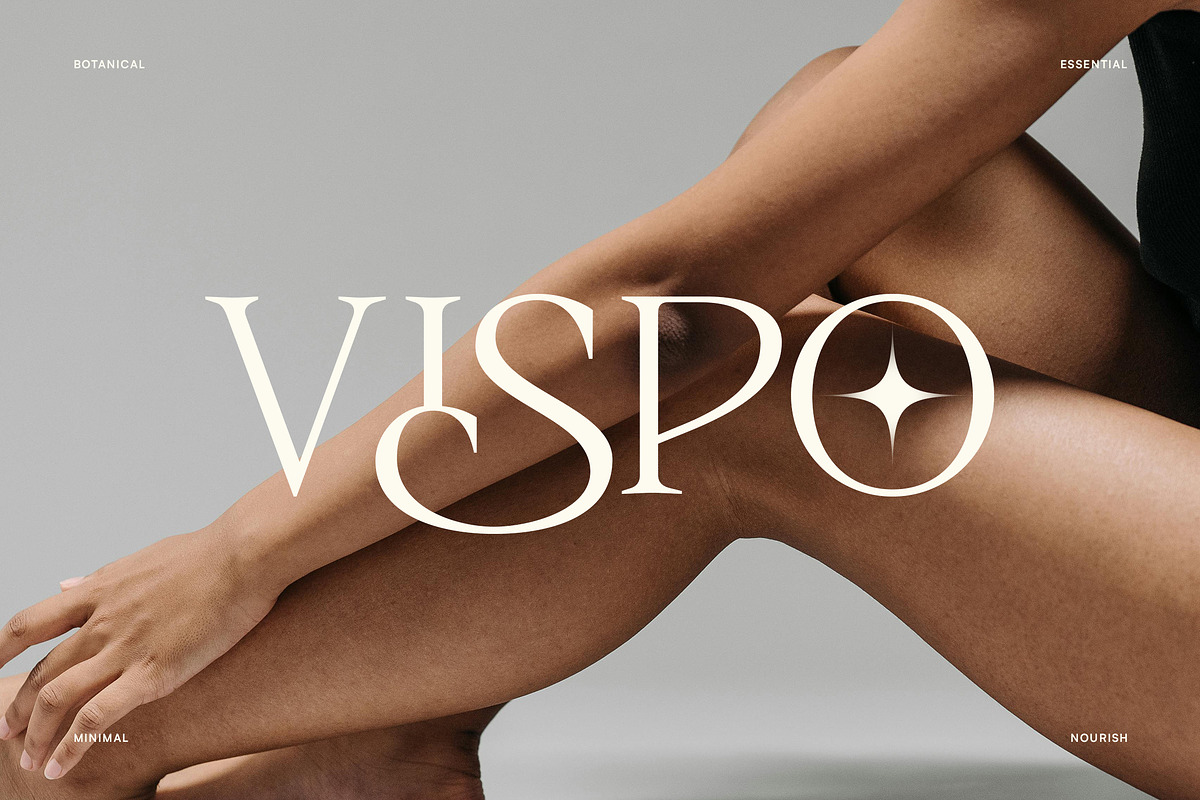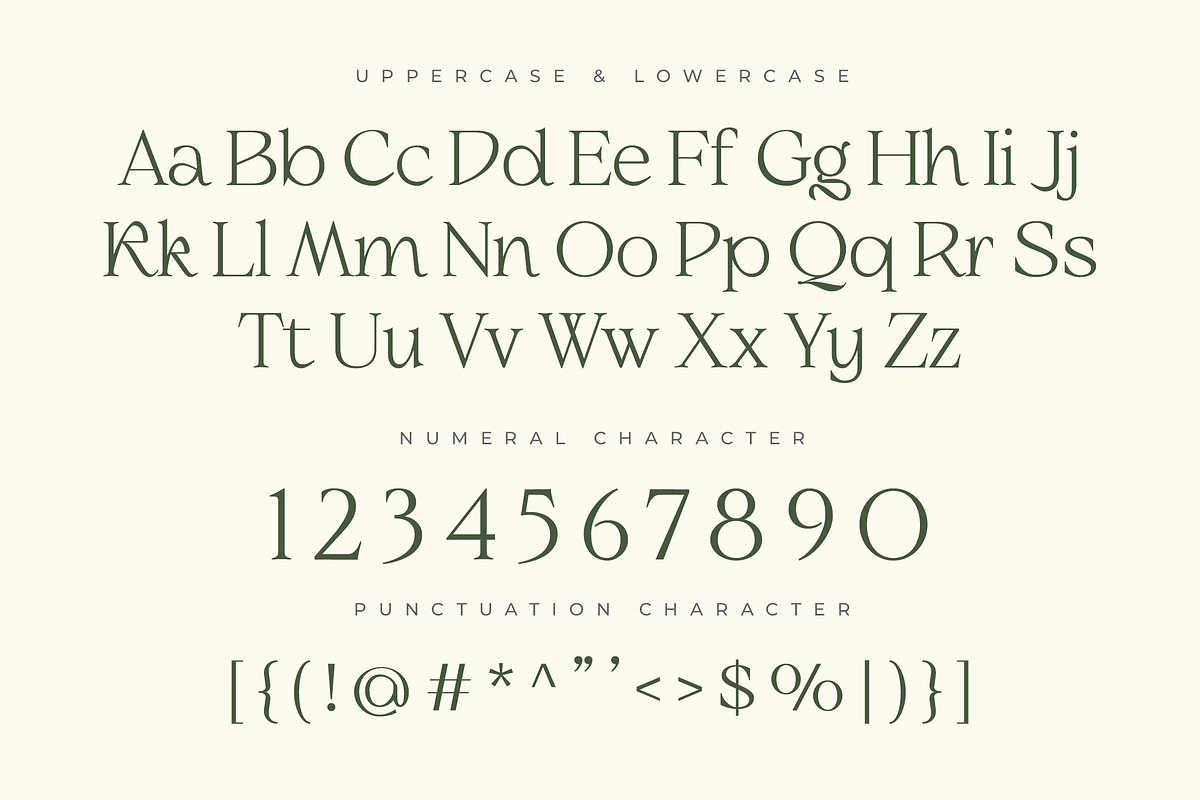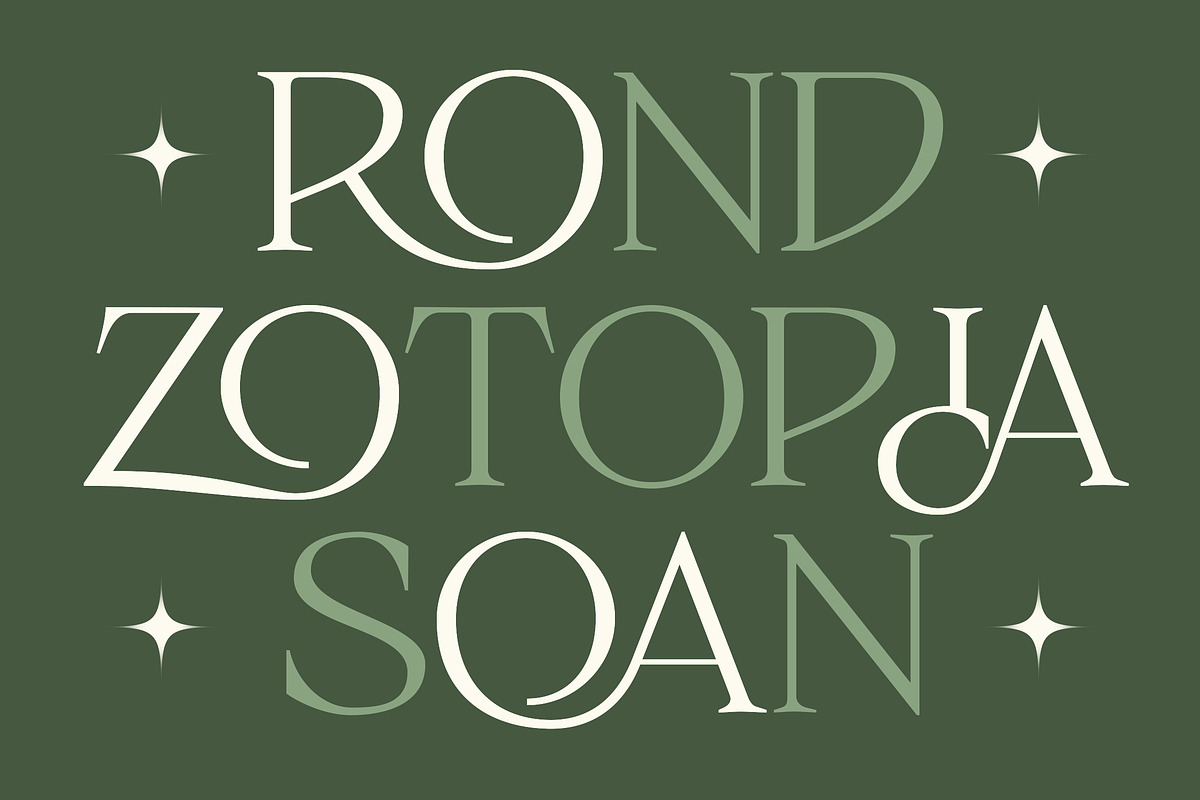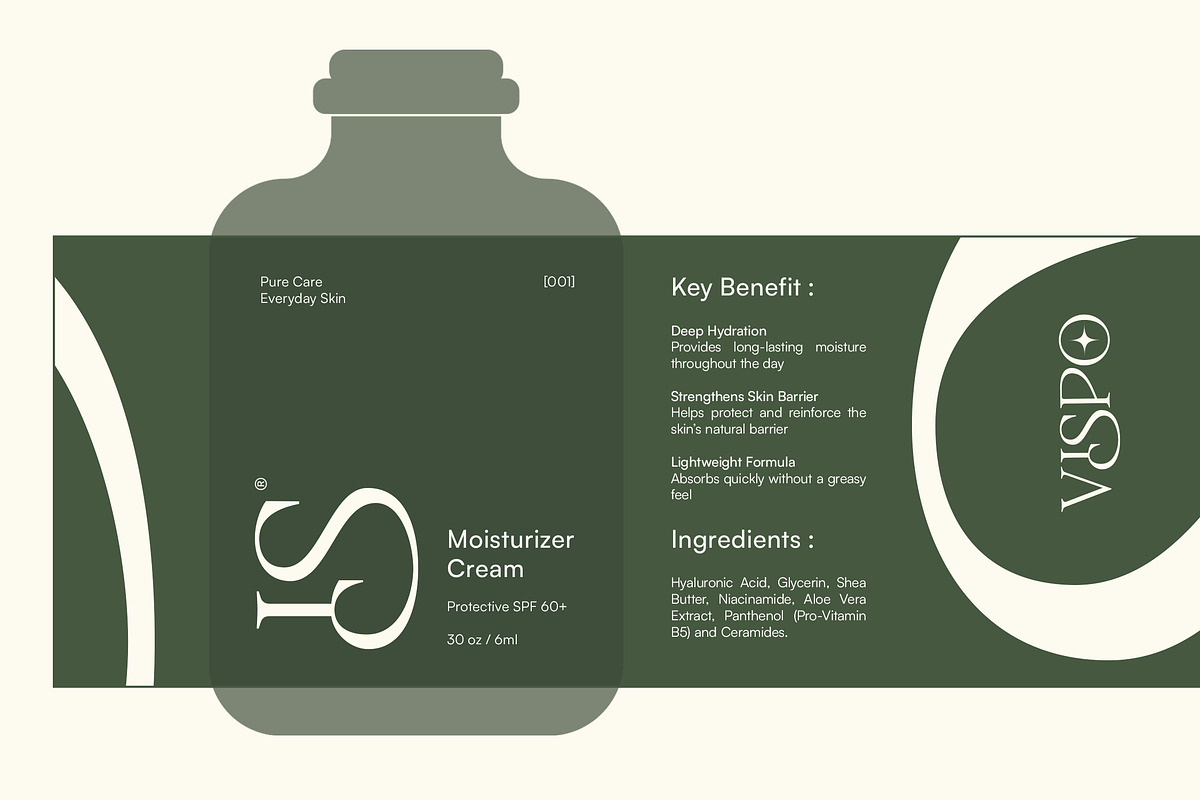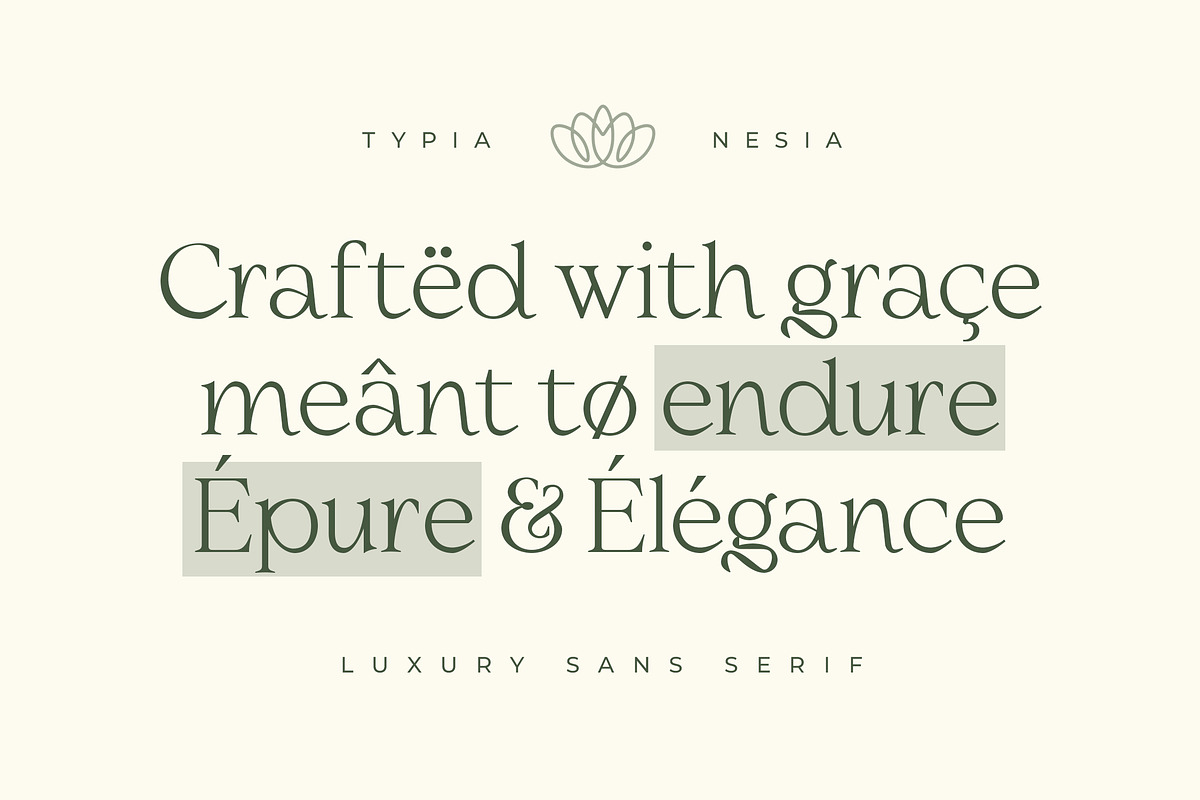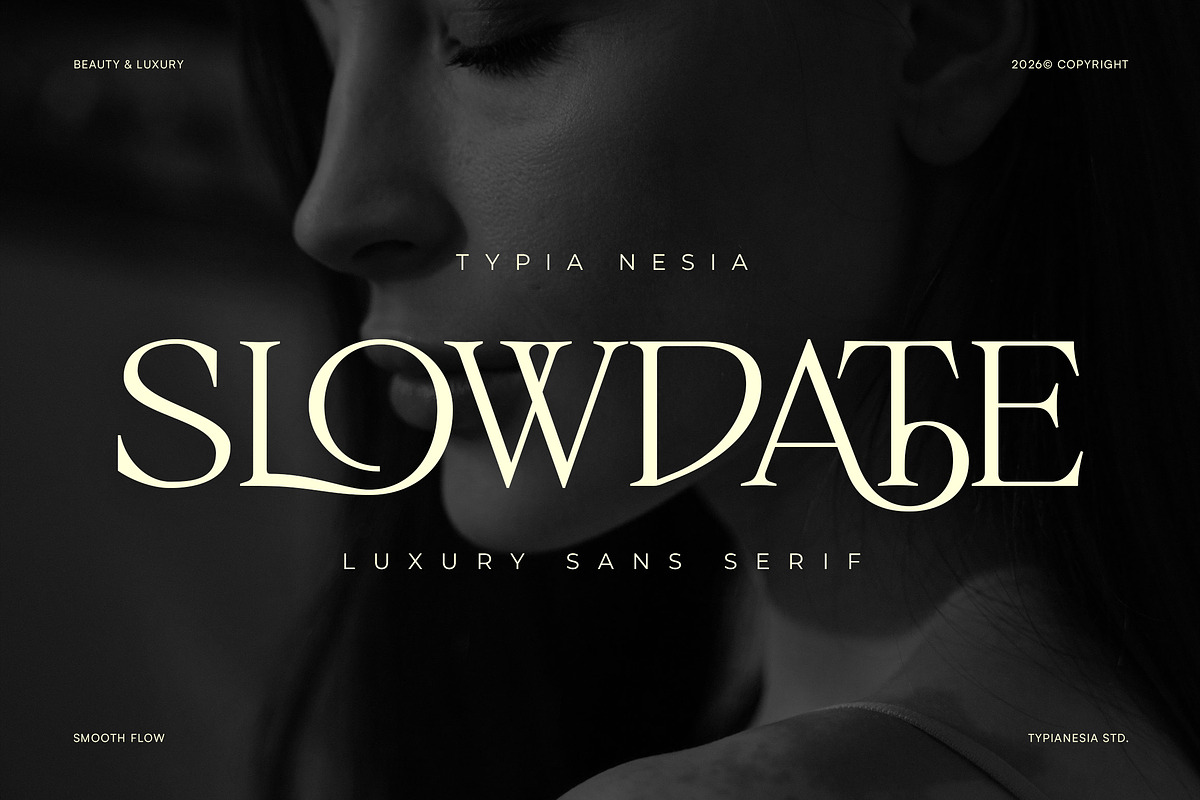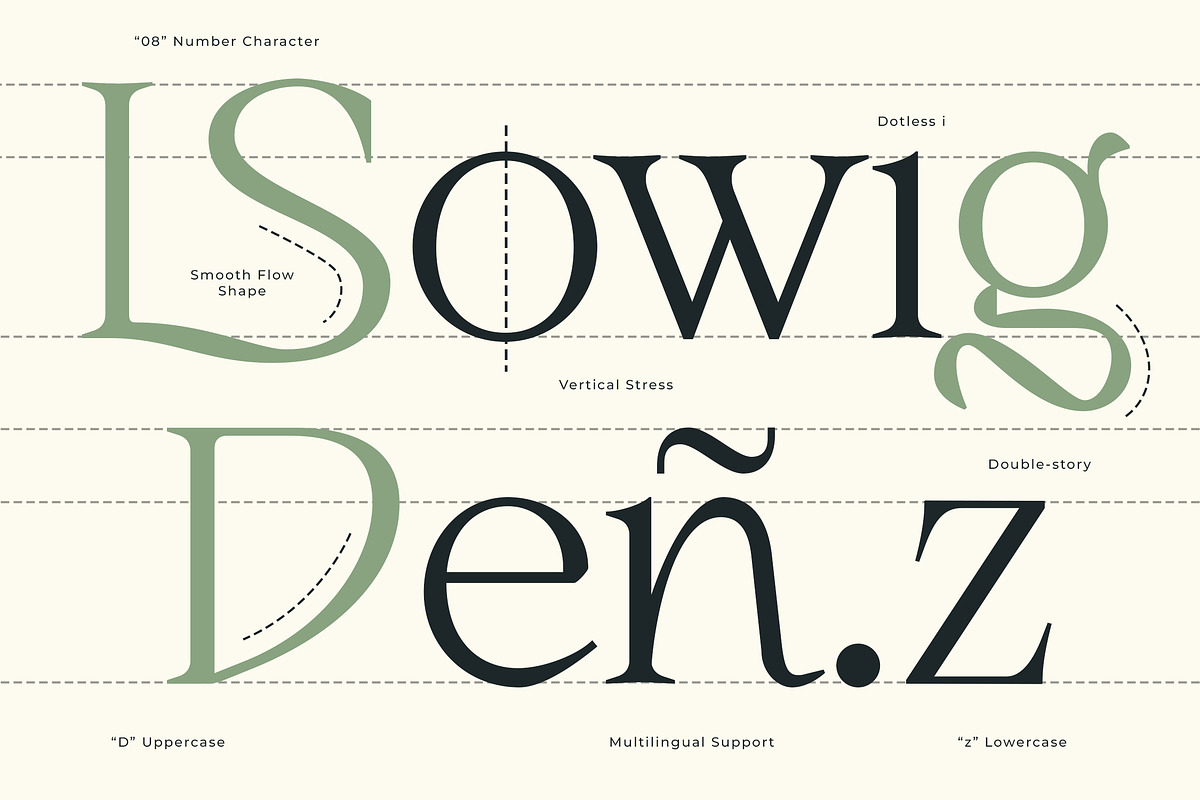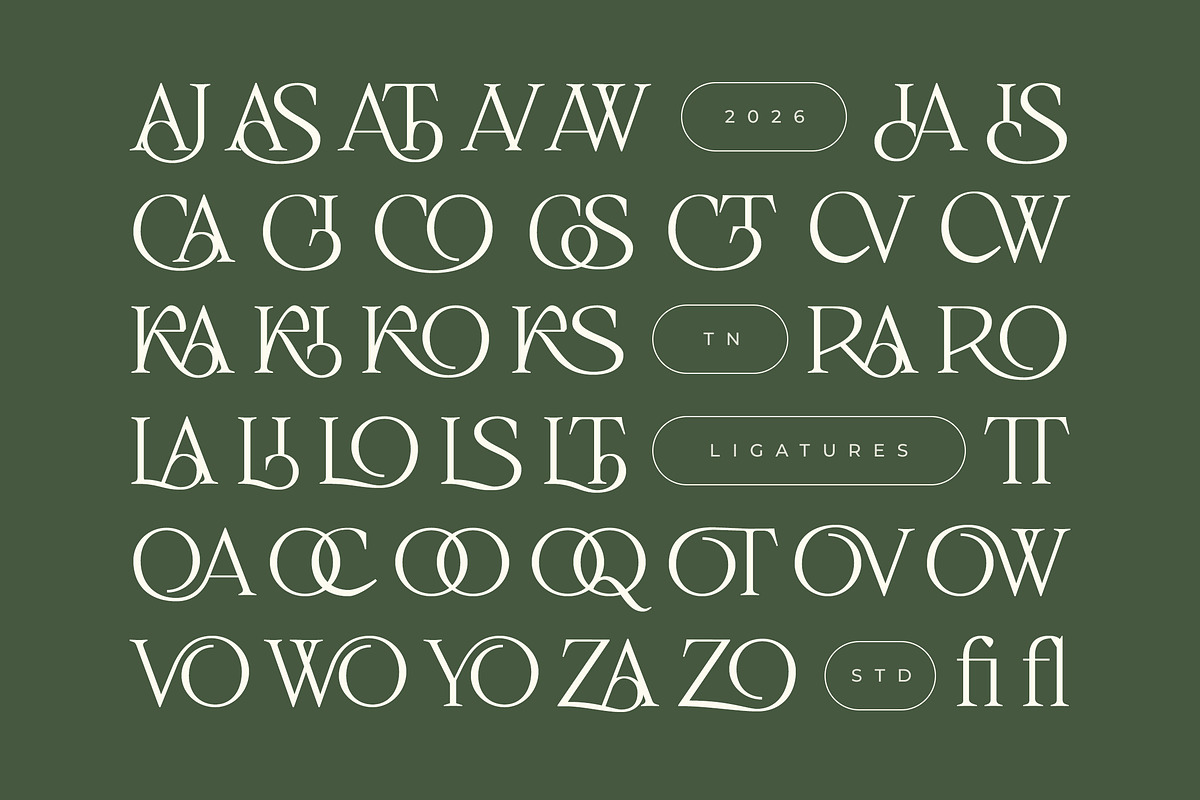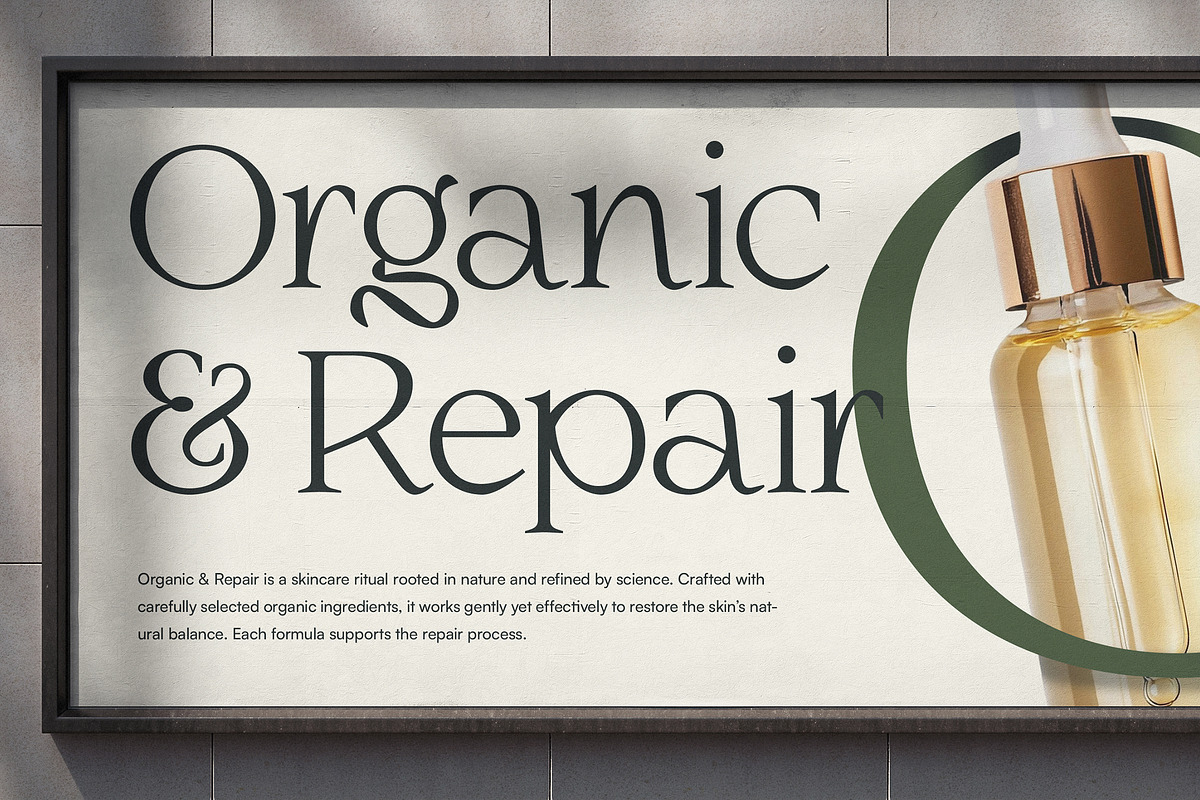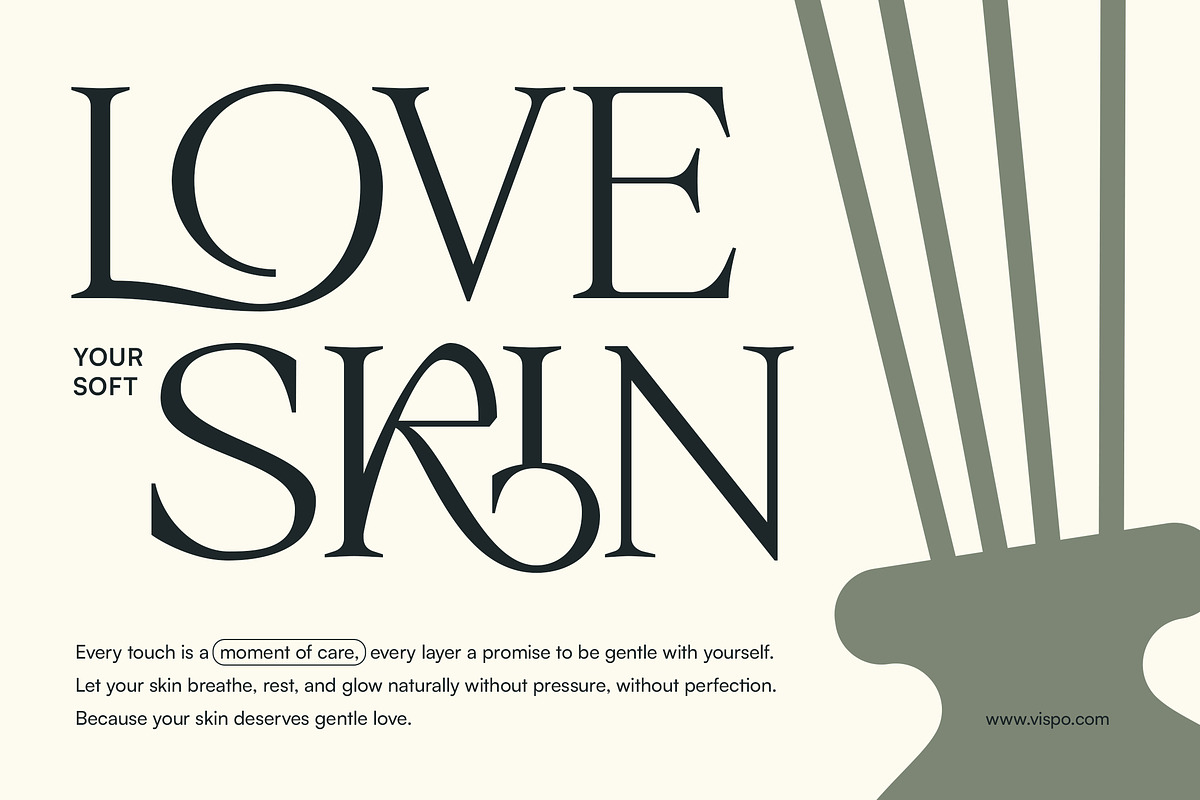
Slowdate - Beauty Elegant Ligature
Slowdate - Beauty Elegant Ligature Serif - Modern Luxury Stylish Display Font
Slowdate is a modern elegant luxury serif font designed to express timeless beauty and refined sophistication. Featuring graceful curves and carefully crafted ligature details, this typeface brings a smooth, feminine, and classy character that feels both royal and contemporary. Slowdate is perfect for logo design, wedding invitations, beauty branding, cosmetic labels, fashion editorials, skincare packaging, posters, and premium branding projects. The elegant serif structure combined with stylish ligatures creates a distinctive and aesthetic look, making every word feel exclusive and luxurious.